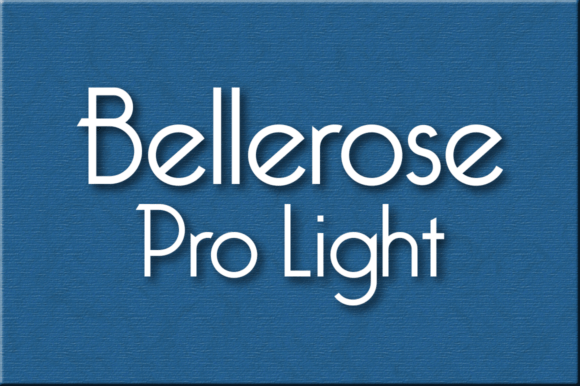
Bellerose Pro Light Font: A Sophisticated Art Deco-Inspired Typeface
Bellerose Pro Light is a stunning, Art Deco-inspired font that has been making waves in the design world. With its sleek lines, sophisticated aesthetic, and universal appeal, this typeface has become a go-to choice for designers and brands looking to add a touch of elegance and glamour to their projects.
A Brief Introduction to Bellerose Pro Light
Bellerose Pro Light is a carefully crafted font that draws inspiration from the opulence and luxury of the Art Deco era. Its design is characterized by clean lines, geometric shapes, and a sense of sophistication that evokes the glamour of old Hollywood. Whether you’re looking to create a high-end brand identity, design a stylish website, or simply add a touch of elegance to your marketing materials, Bellerose Pro Light is an excellent choice.
The Versatility of Bellerose Pro Light
One of the standout features of Bellerose Pro Light is its incredible versatility. This font has been used in a wide range of applications, from high-profile movie credits to children’s books, and from retail packaging to website design. Its universal appeal is evident in its ability to adapt to different contexts and audiences, making it a valuable asset for designers and brands looking to create a consistent visual identity.
In Film and Television
Bellerose Pro Light has starred on the big screen in numerous high-profile movie credits, adding a touch of glamour and sophistication to film titles and posters. Its sleek lines and elegant aesthetic make it an ideal choice for creating eye-catching and memorable title sequences.
In Children’s Books
But Bellerose Pro Light is not just limited to high-end film productions. It has also charmed young readers in children’s books, bringing a sense of wonder and magic to storybook titles and illustrations. Its playful, yet sophisticated aesthetic makes it an excellent choice for creating engaging and visually appealing children’s literature.
In Retail Packaging
Bellerose Pro Light’s sleek lines and elegant aesthetic have also made it a popular choice for retail packaging. Its ability to convey a sense of luxury and sophistication makes it an ideal choice for high-end brands looking to create eye-catching and memorable packaging that stands out on store shelves.
In Website Design
In addition to its use in film, children’s books, and retail packaging, Bellerose Pro Light has also been used in numerous website designs. Its typography finesse and elegant aesthetic make it an excellent choice for creating visually appealing and user-friendly websites that reflect a brand’s values and personality.
The Benefits of Using Bellerose Pro Light
- Universal appeal: Bellerose Pro Light has a broad appeal that transcends different contexts and audiences, making it an excellent choice for designers and brands looking to create a consistent visual identity.
- Elegant aesthetic: Its sleek lines and sophisticated aesthetic evoke the glamour of old Hollywood, adding a touch of luxury and sophistication to any design project.
- Versatility: Bellerose Pro Light can be used in a wide range of applications, from film titles and children’s books to retail packaging and website design.
- Typography finesse: Its elegant typography makes it an excellent choice for creating visually appealing and user-friendly designs that reflect a brand’s values and personality.
In conclusion, Bellerose Pro Light is a sophisticated, Art Deco-inspired font that offers a unique combination of elegance, versatility, and universal appeal. Whether you’re a designer, brand, or simply someone looking to add a touch of glamour to your design projects, Bellerose Pro Light is an excellent choice. Its sleek lines, elegant aesthetic, and typography finesse make it an ideal choice for creating visually appealing and memorable designs that stand out in a crowded marketplace.